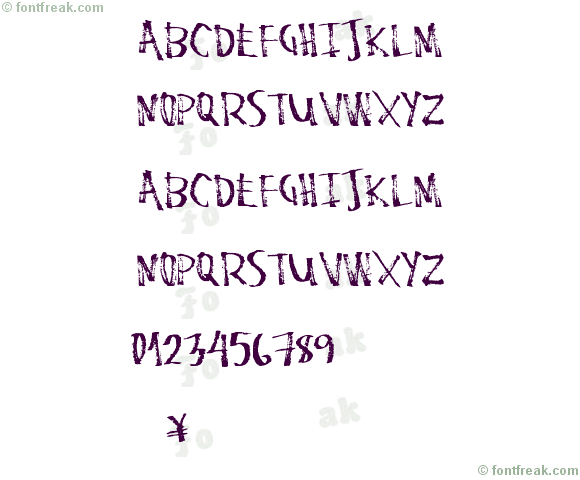
StaleMarker
About StaleMarker
StaleMarker is a distinctive display font designed by XEROGRAPHER FONTS, released in 2014 as freeware. This font embodies a playful, handwritten style that captures the essence of casual, spontaneous writing, making it perfect for various creative projects. The strokes in StaleMarker exhibit a medium weight with a slightly uneven texture, which adds to its organic feel. The characters are spaced generously, enhancing readability while maintaining a relaxed, informal vibe. This font's unique appearance is characterized by its slightly jagged edges and varying line thickness, reminiscent of ink marks made by a felt-tip pen.
StaleMarker is an excellent choice for a wide range of applications. It shines in projects like wedding invitations where a personal touch is desired, or on quirky restaurant menus that want to convey a fun atmosphere. Additionally, it works well for promotional materials, such as flyers or posters for local events, where eye-catching typography can draw attention. Content creators looking to add a unique flair to their blog posts or social media graphics will also find StaleMarker to be a valuable asset in their design toolkit.
The target audience for this font includes graphic designers, small business owners, and content creators who are seeking to infuse their work with a touch of personality and charm. StaleMarker stands out due to its unique character and versatility, allowing it to adapt to various themes and moods. With a StaleMarker font free download option, users can easily incorporate this delightful typeface into their projects, adding a distinctive flair that enhances visual storytelling and engages audiences effectively.